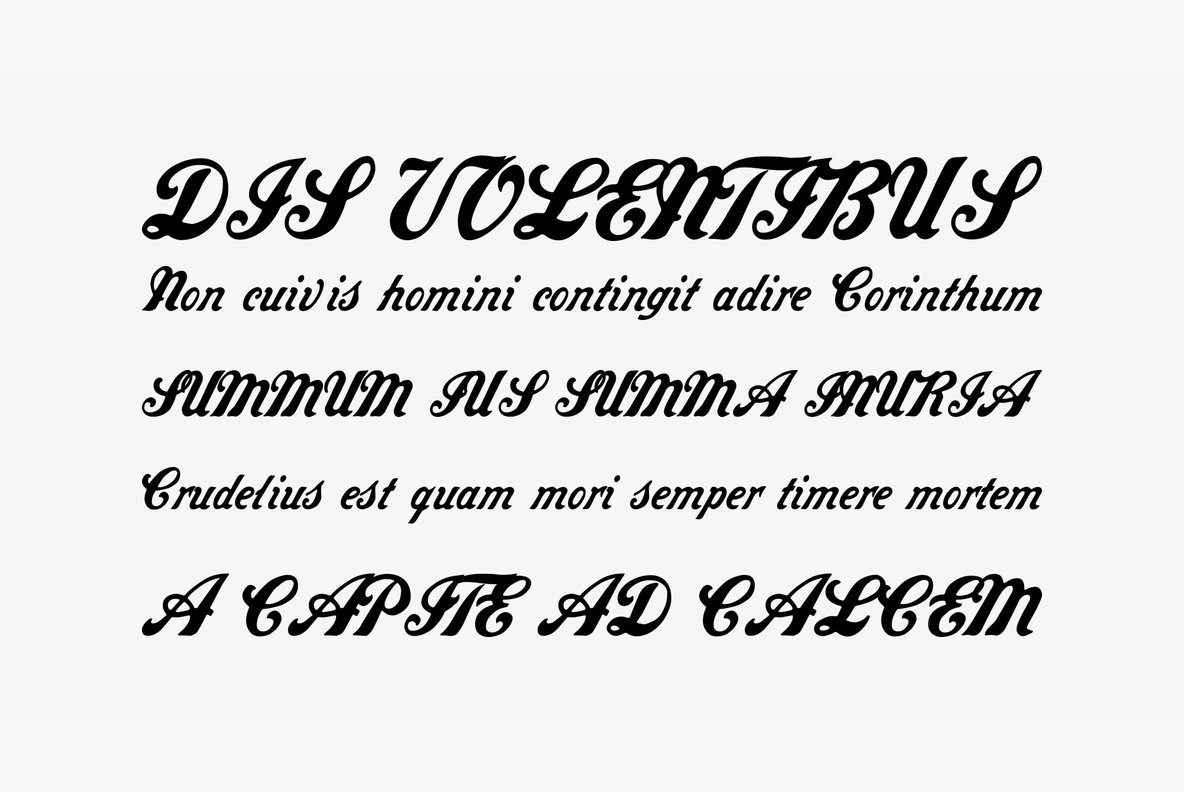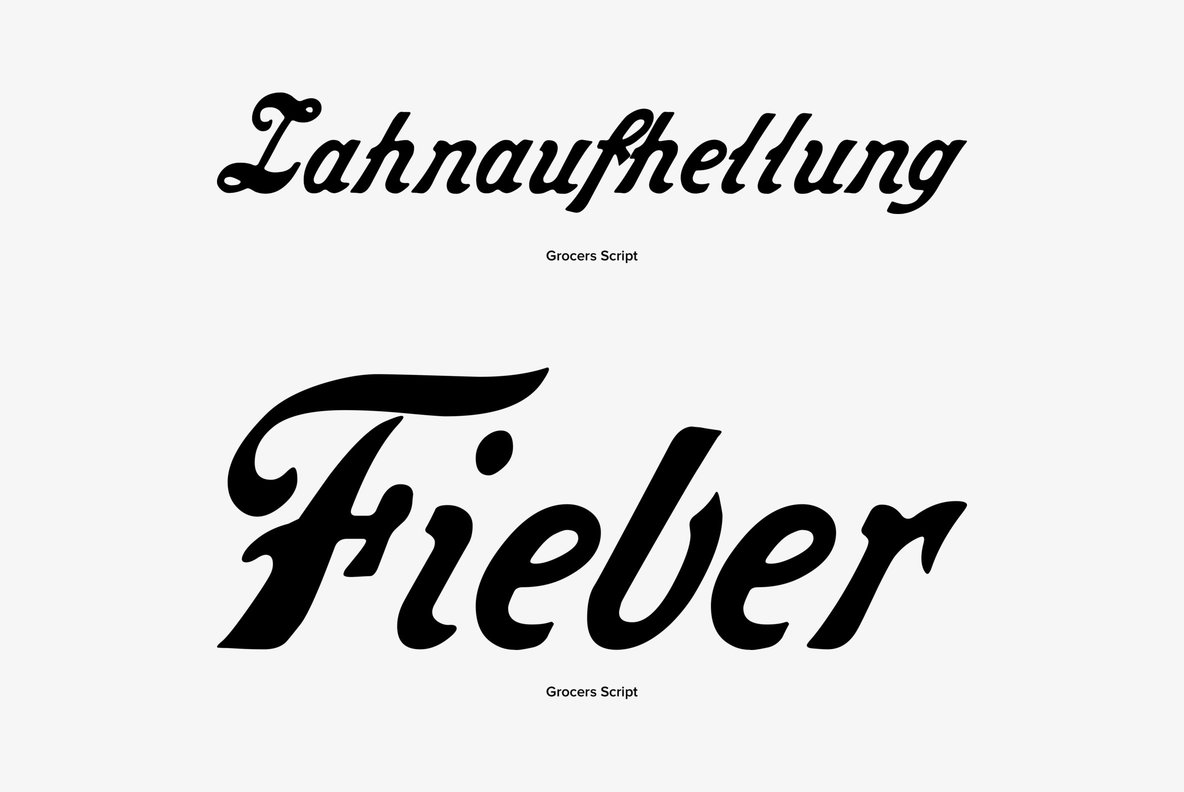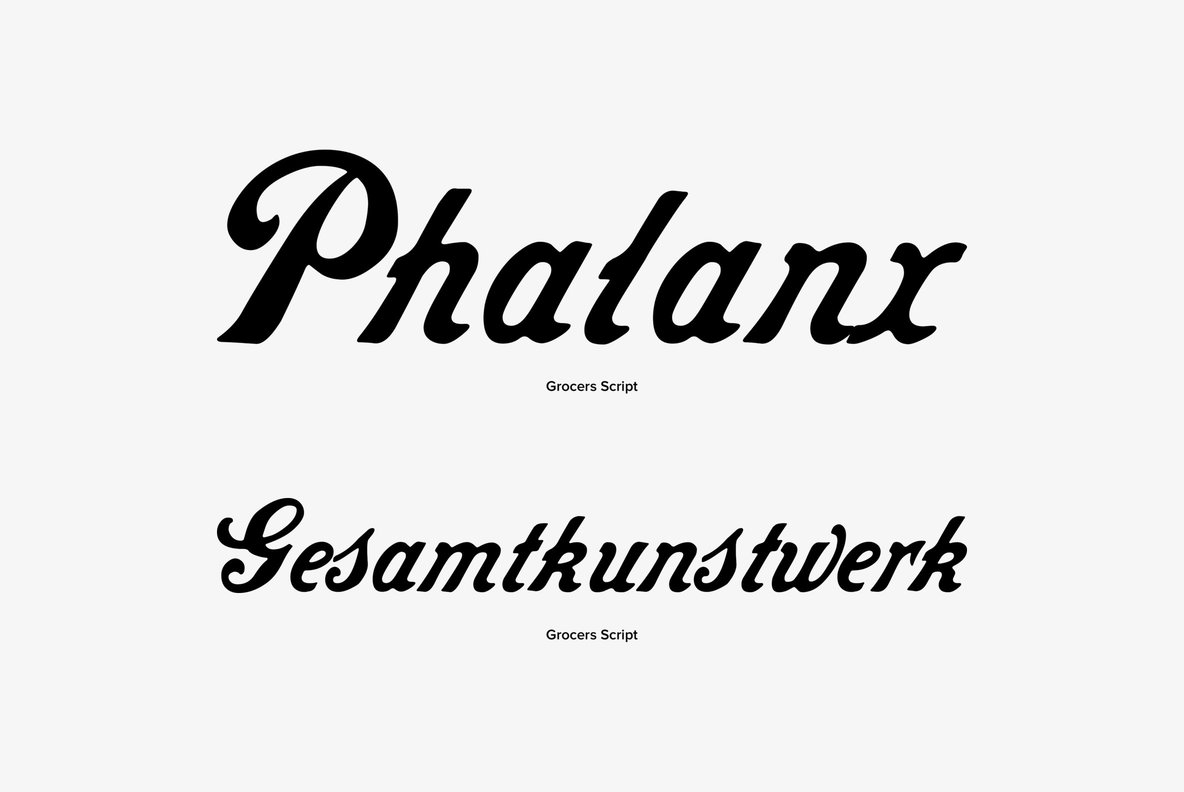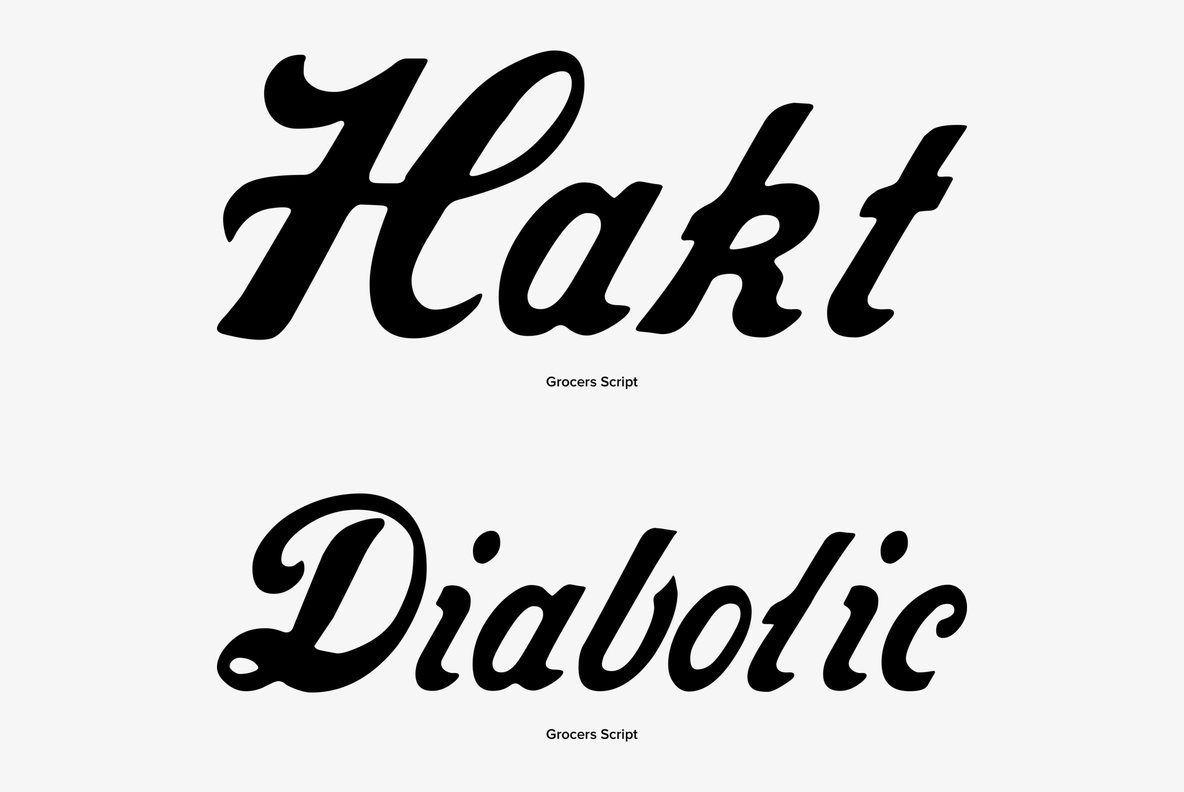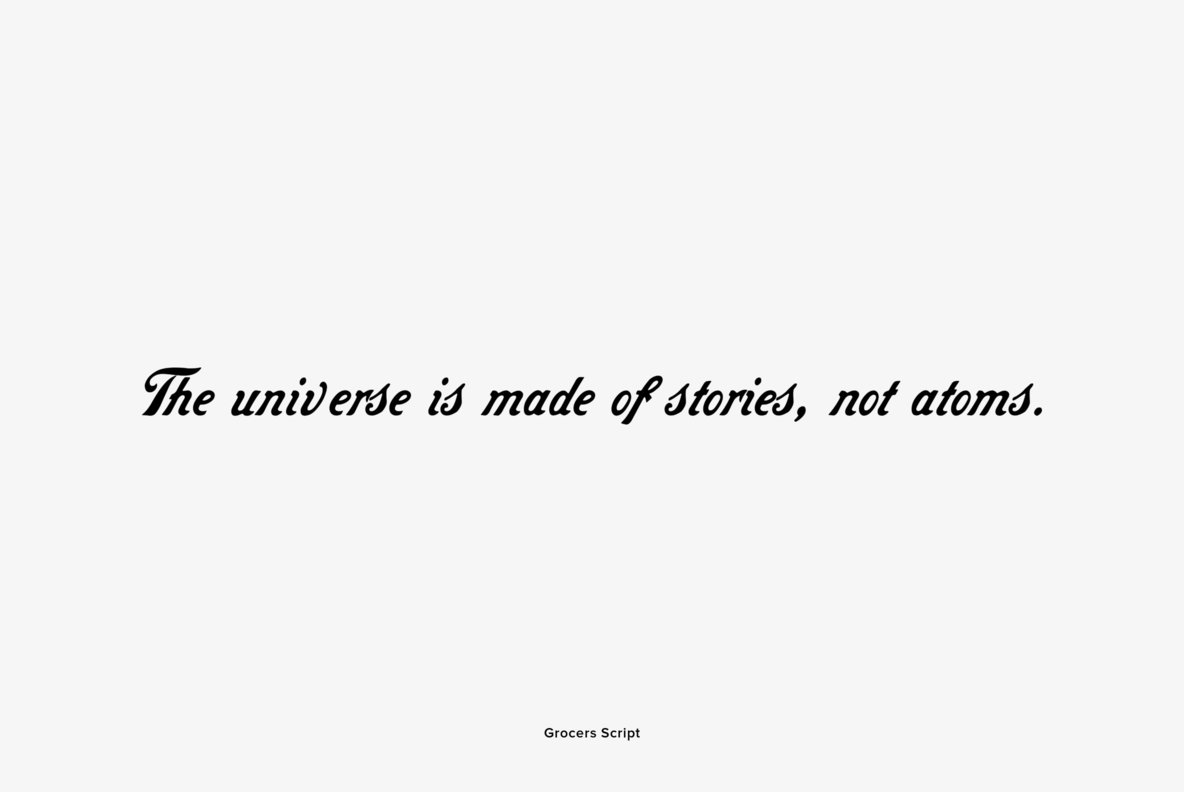
Grocers Script Font
Grocers Script
I discovered "Grocers Script" on the market "Cours Saleya" in Nice. I always buy my foodstuff there when I am in the area. I developed the whole font from some fragments. If you ever come to Nice, you must absolutely visit that market as well as the one in Cannes.